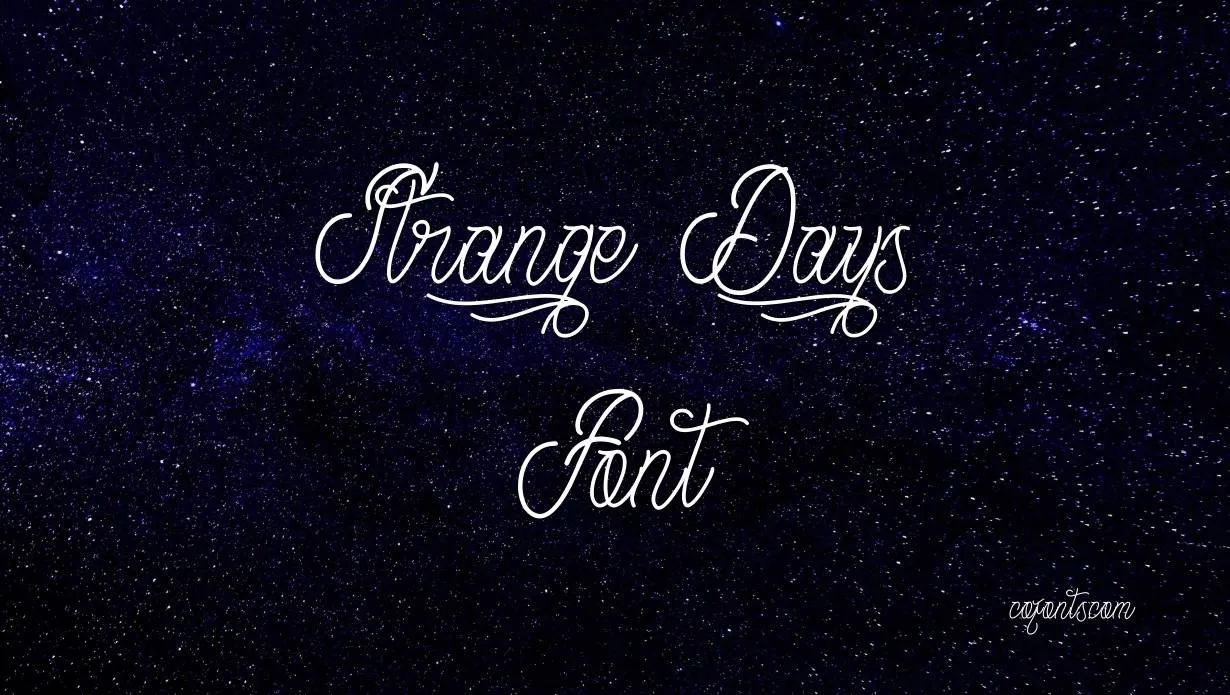
Richie Mx designed this Strange Days font It is possible to make use of this astounding font in google docs for a variety of purposes when writing. Use this beautiful font for banners, posters, social media posts, and ads.
A wonderful typeface like this can be used in a variety of name design applications. The application is compatible with several writing programs, such as Word, Excel, and WordPad. You can use this font to create amazing logos for television dramas, movies, and animated series. A lot of designers choose this font to make their designs more interesting and eye-catching.
There is a generator tool available for this font family. The tool can be used for branding projects. is possible to create movie posters along with their titling. This font is very close to the freestyle script dont. YouTubers use it for making games and vlogs more attractive. It’s best suited to clothing, t-shirt, blouse, and pants designs.
As a designer, you can use this font to design newspaper and magazine covers, invoices, and invoices for book covers. It has been used by many professionals to design websites in the past. When you create your next website, you can incorporate the actual font or any of its weights and versions, which will add a stylish and appealing touch to the design.
Usage of Strange Days Font
Besides, this typeface is perfect for use in social media apps. This typeface can also be used in HTML, CSS, etc. It can be used for designing web content and web pages. This tool is useful for a variety of official design projects, such as resume template designs, thumbnail designs, and theme designs.
This cool typeface has stylish characters. There are a variety of styles available in this beautiful typeface that will improve the quality of your projects.
There is no doubt that this script typeface has flexible characters that will give you flawless results. Many alternatives can be paired with this typeface.
There is no doubt that this typeface is very popular among designers and people who use it for their purposes due to its soft and unique look. In addition to logo designs and murals, this typeface is ideal for homeware designs, names, and social media titles
Name | Strange Days Font |
Style | Script |
Designer | Richie Mx |
Can I use Strange Days Font for logo designs?
Logos for YouTube channels, Instagram accounts, business websites, and shipping websites are best created using this font.
Can I use Strange Days Font for poster designs?
There is no problem using this logo font for creative poster designs. Moreover, it can also be used to design posters for wall streets.